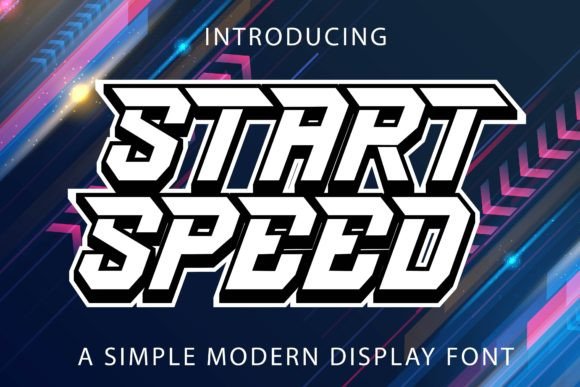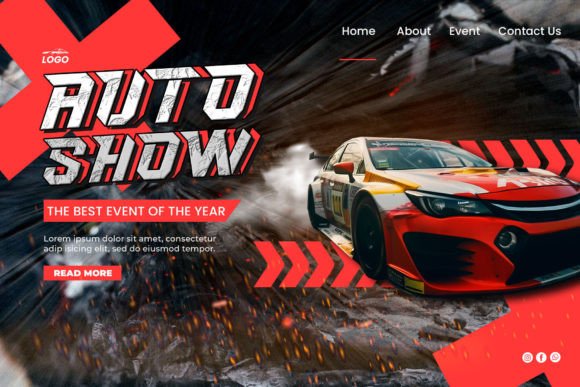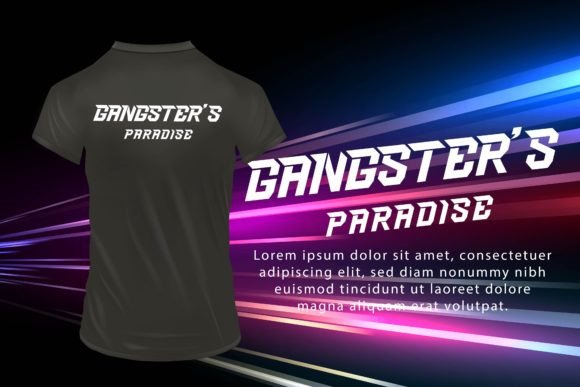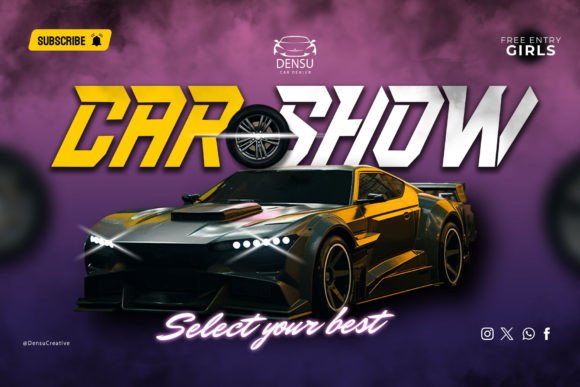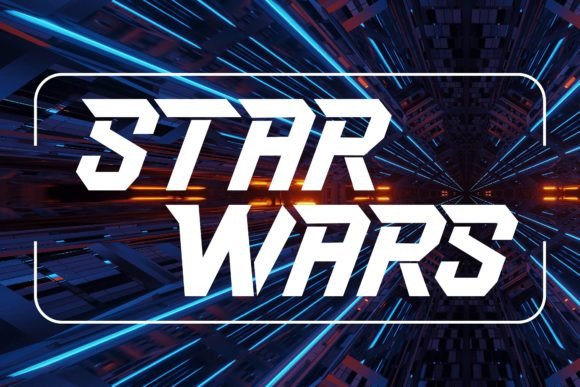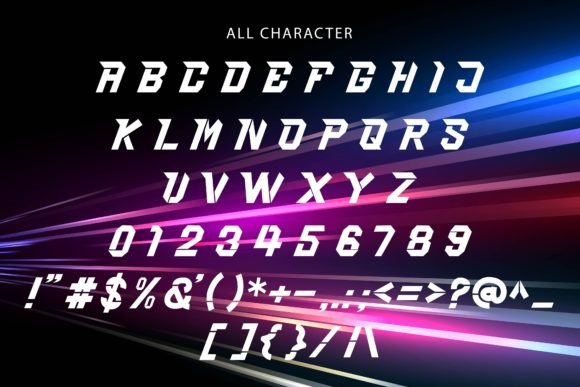
Start Speed Font
Start Speed Font is an uppercase typeface designed with a speed theme. This cool sports font features a fresh style with modern cutouts and a dynamic tilt that conveys a sense of quick movement. It’s perfect for fast auto racing sports, titles, logos, posters, headlines, magazines, automotive games, monograms, or other dynamic modern designs. The unique cuts of Start Speed give it an impression of strength and speed from every angle.